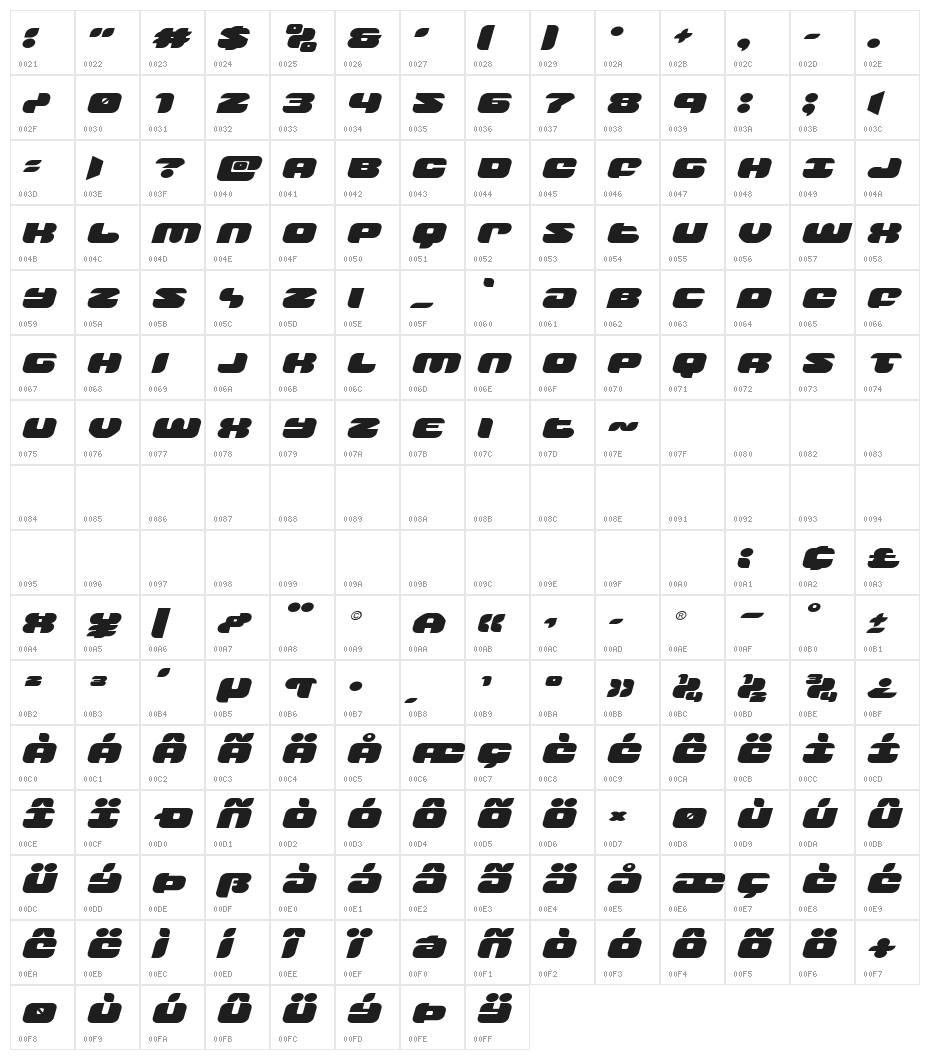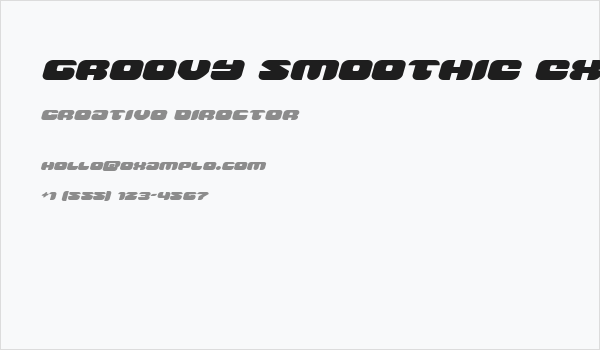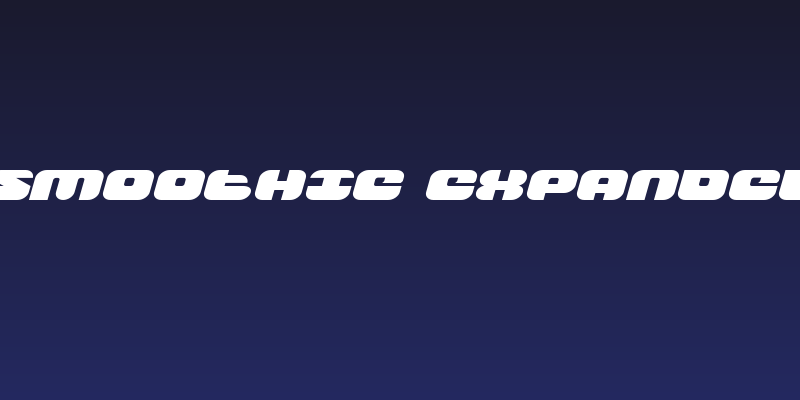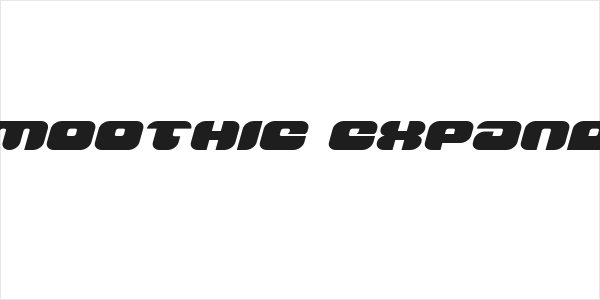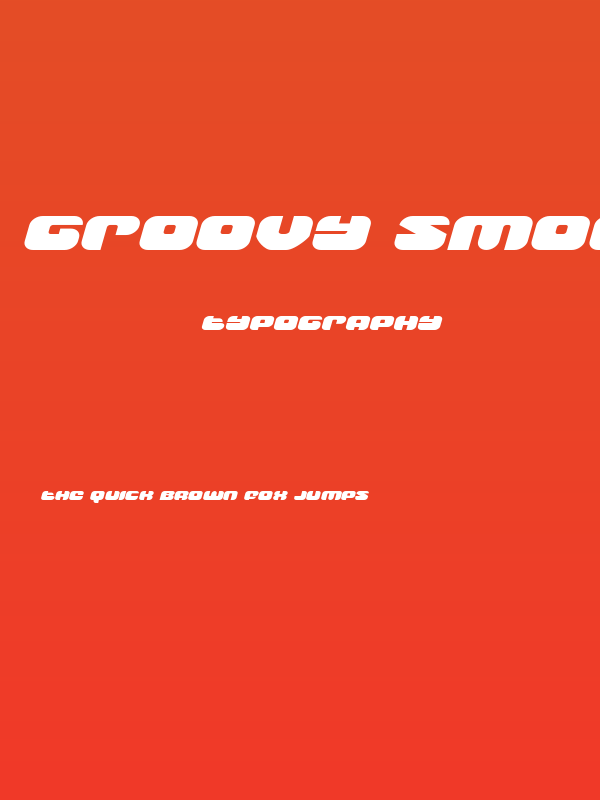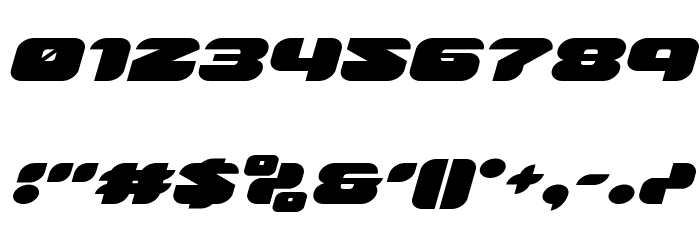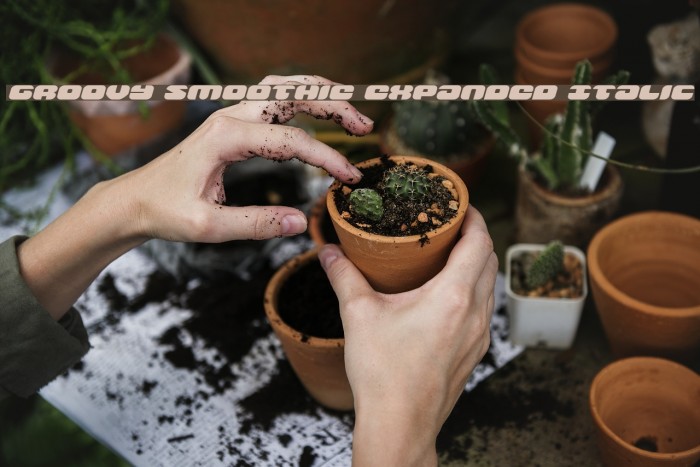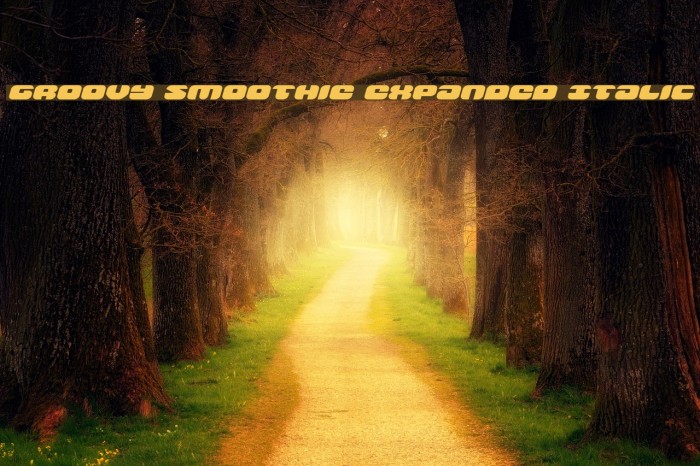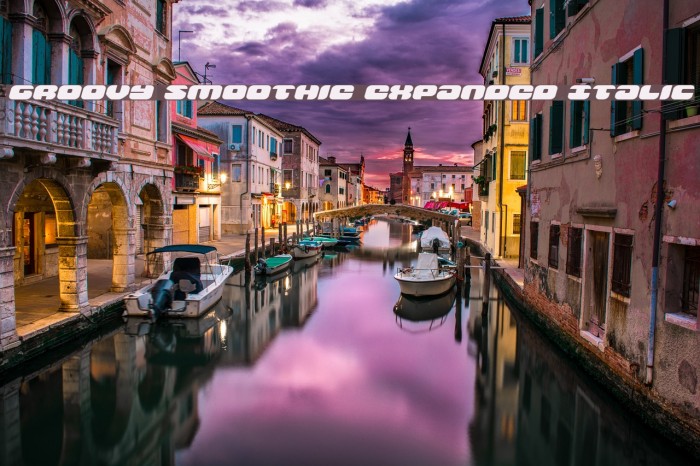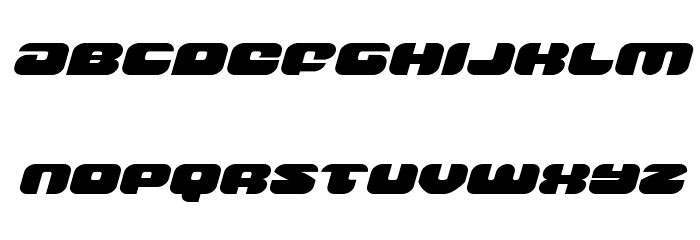
Groovy Smoothie Expanded Italic Font
This font features a bold and playful design with smooth, rounded edges and a distinctly expanded width. Its italic style adds a dynamic and energetic feel, making it stand out with a groovy, retro vibe. The characters are well-spaced, providing a balanced and harmonious appearance. The font's high contrast in stroke thickness enhances its readability while maintaining a unique and stylish look. Its overall design is both modern and nostalgic, perfect for capturing attention.
| Overall Style | Retro, Modern |
| Proposed Projects | Ideal for retro-themed posters, branding, music album covers, and creative advertising campaigns. |